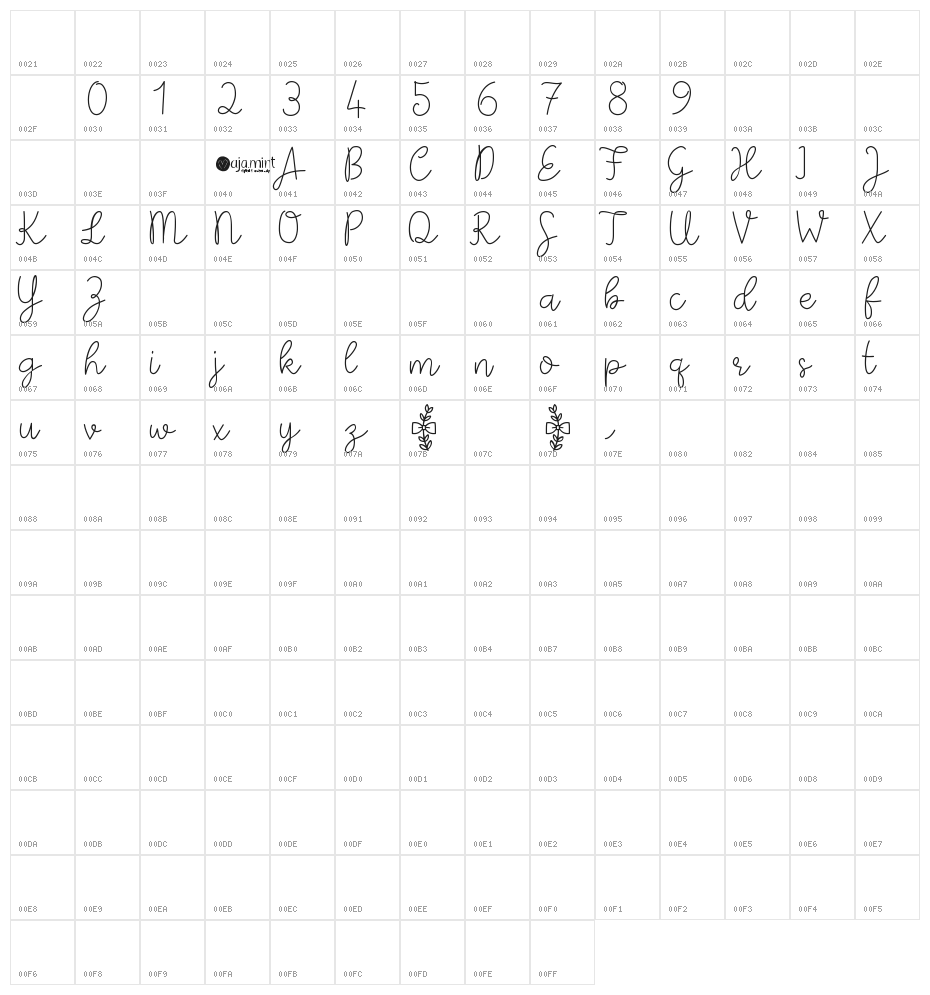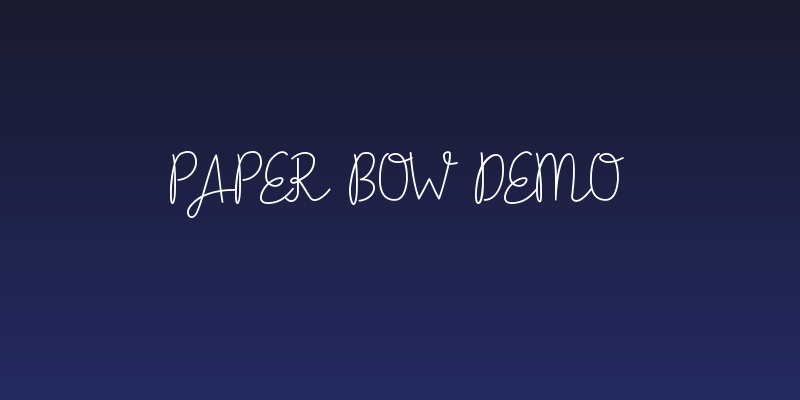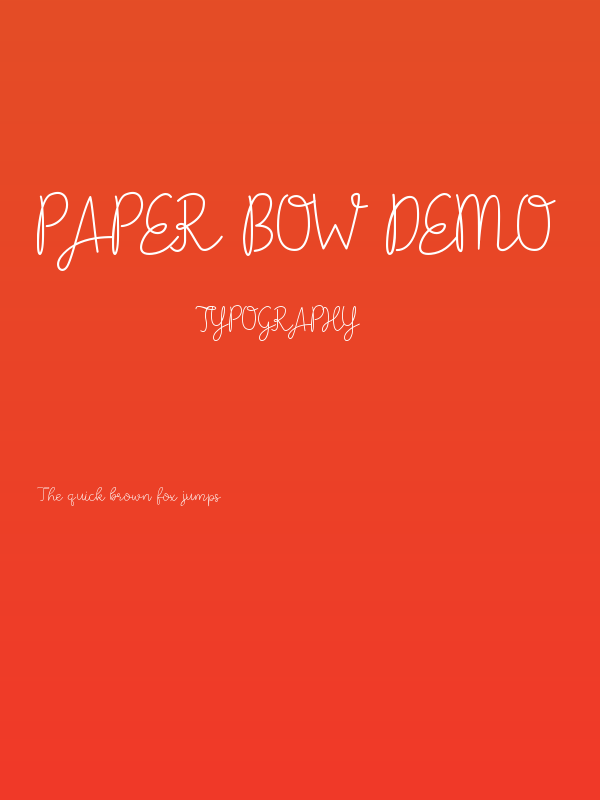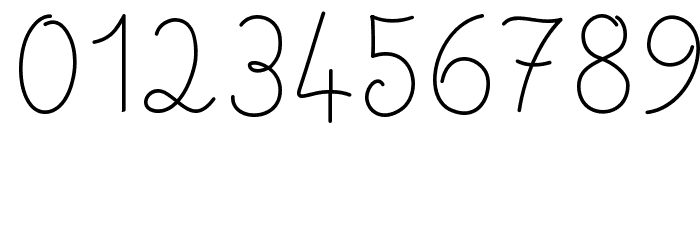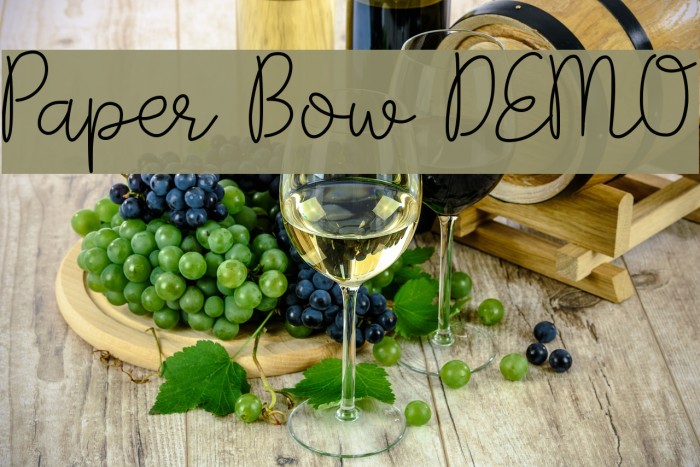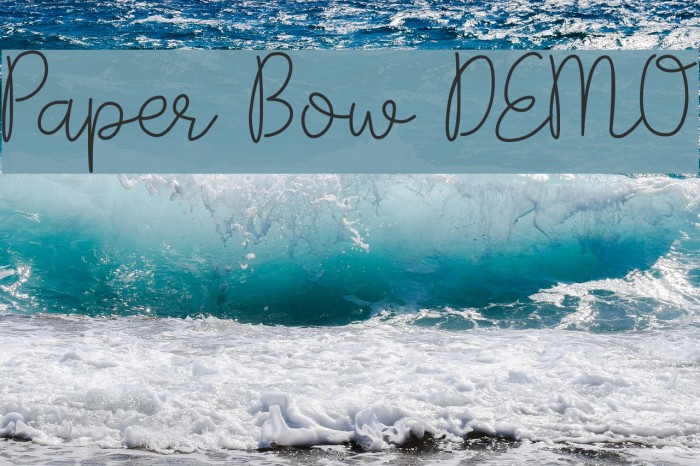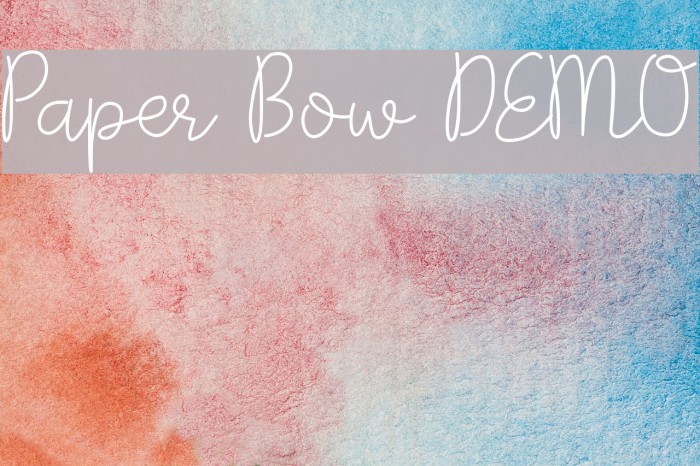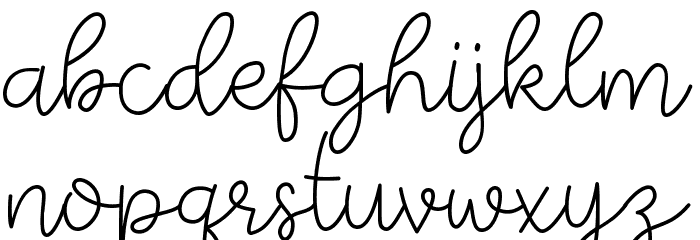
Paper Bow DEMO Font
Paper Bow DEMO Description
This font features a playful and whimsical script style, characterized by its smooth, flowing lines and elegant curves. Each letter is crafted with a sense of fluidity, creating a harmonious and cohesive appearance. The uppercase letters are slightly more elaborate, with some letters featuring unique loops and swirls that add to the font's charm. The lowercase letters maintain a consistent style, with rounded edges and a gentle slant that enhances readability. Numbers and special characters are designed to match the overall aesthetic, ensuring a seamless integration with the alphabet. This font is ideal for projects that require a touch of elegance and creativity.
| Use Case | Logos, Invitations, Greeting cards |
| Proposed Projects | Ideal for wedding invitations, greeting cards, branding, and creative projects that require a touch of elegance. |